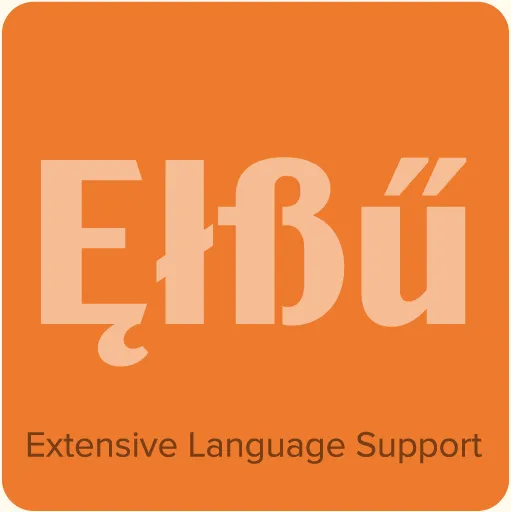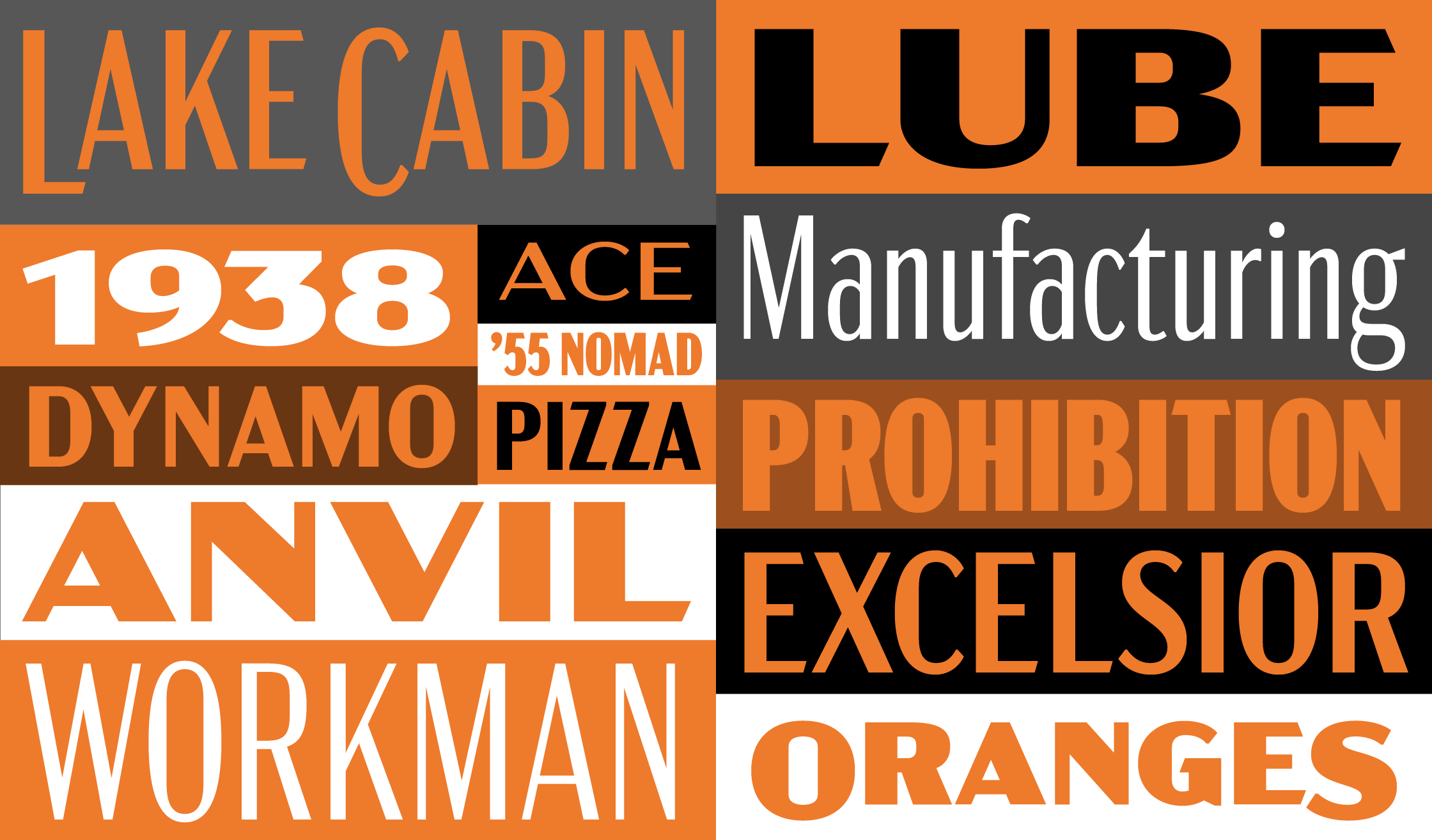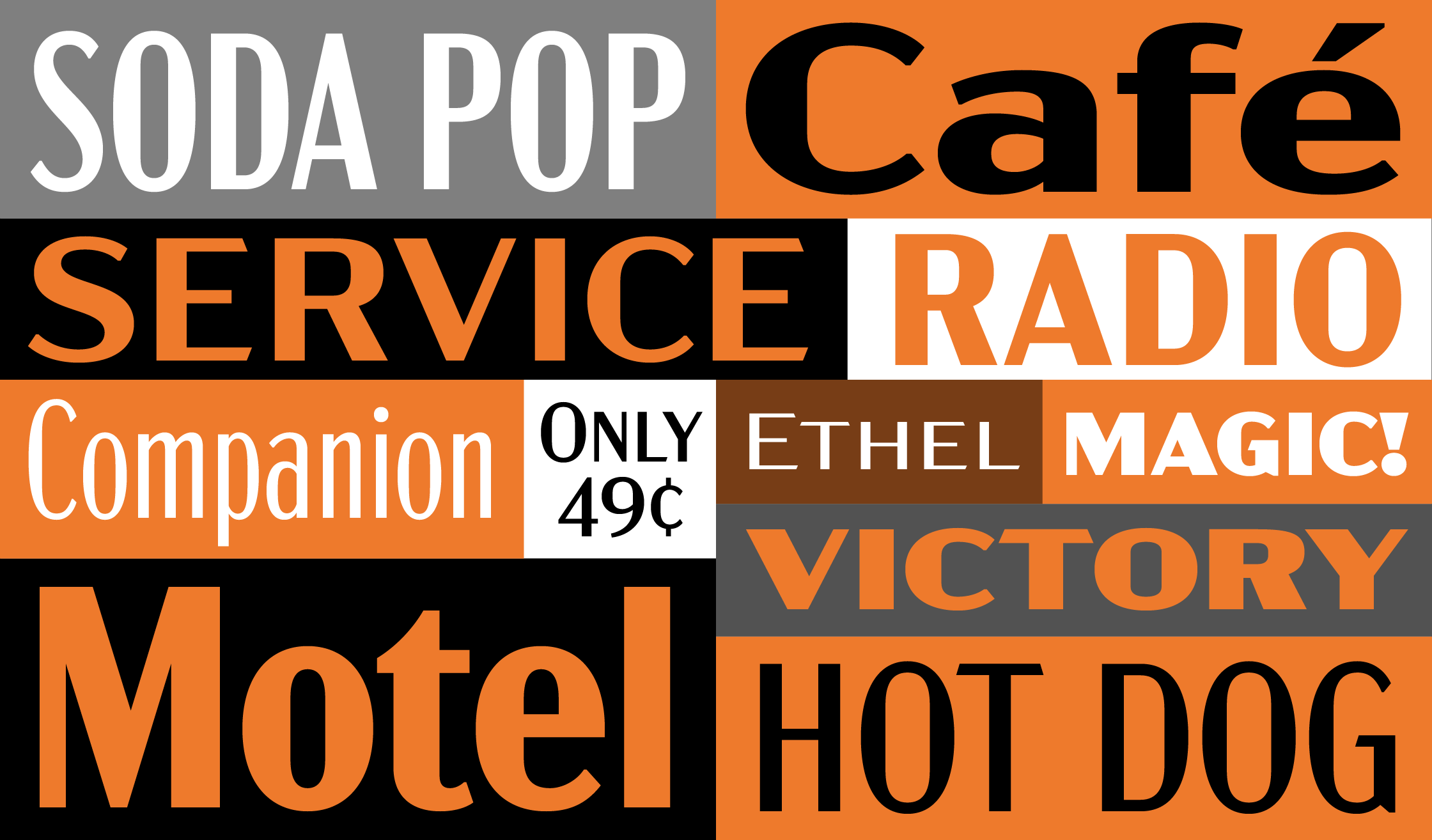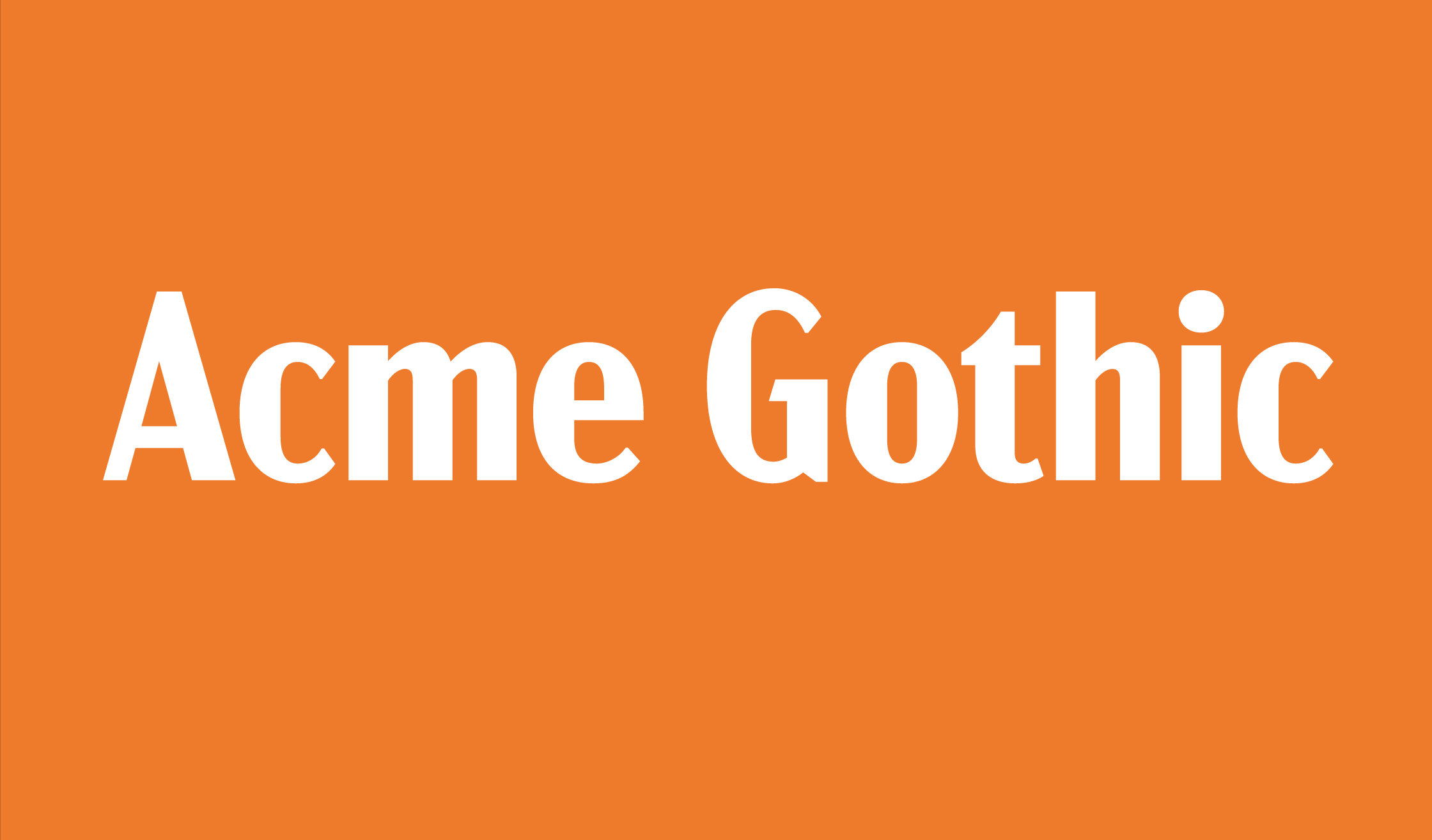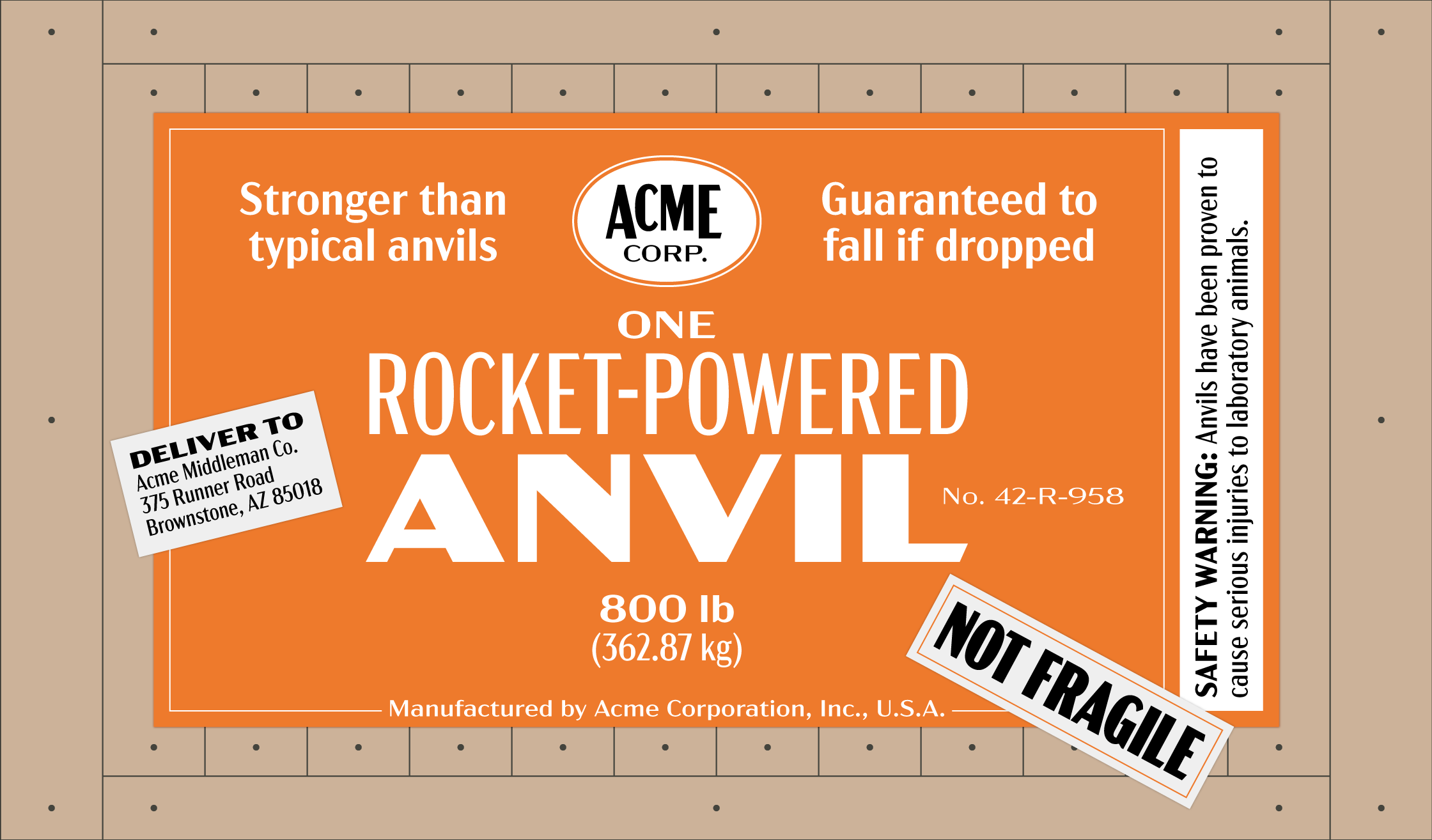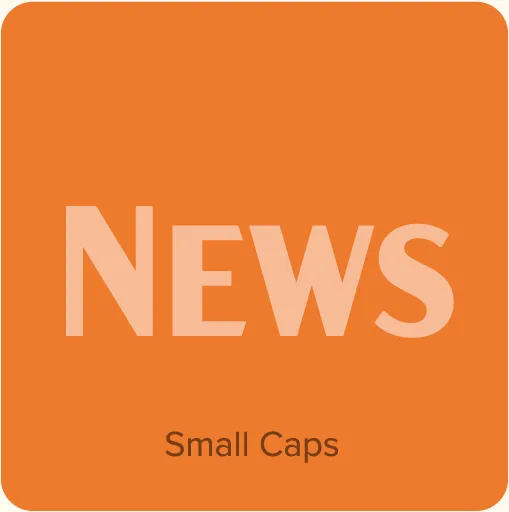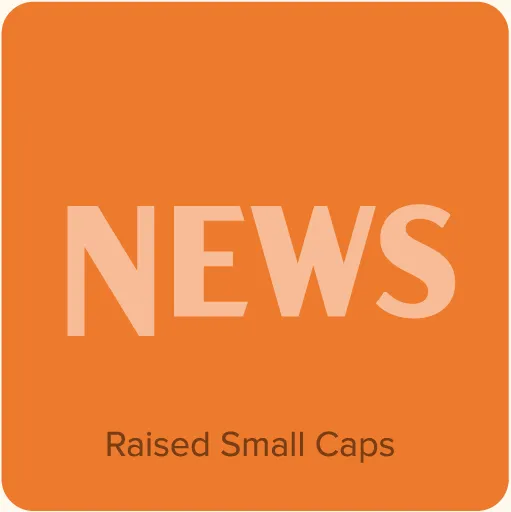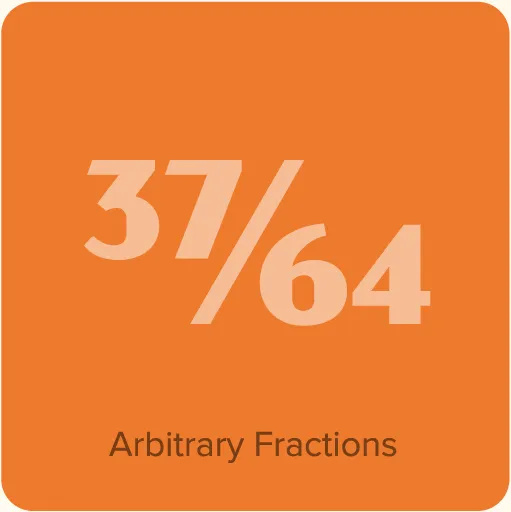
Acme Gothic (2018) is based on the thick-and-thin gothic lettering style popular in the U.S. in the first half of the twentieth century. There have been typefaces in this genre before, but they were either too quirky (Globe Gothic), too English (Britannic), too Art Deco (Koloss), too modern (Radiant), or too Art Nouveau (Panache). None captures the plain, workman-like, vernacular style of Acme Gothic. There are five widths (Compressed, Condensed, normal, Wide, and Extrawide) each with five weights (Light, Regular, Semibold, Bold, and Black) for a total of 25 different styles.
Acme Gothic Features
- Five weights: Light, Regular, Semibold, Bold, and Black.
- Five widths: Compressed, Condensed, normal, Wide, and Extrawide.
- Alternate “mirrored” quotation marks (stylistic set 1).*
- Small caps and raised small caps (stylistic set 2).*
- Arbitrary fractions (OpenType Fraction feature).*
- Superscript and subscript.*
- Extended language support for most Latin-based Western and Central European languages.